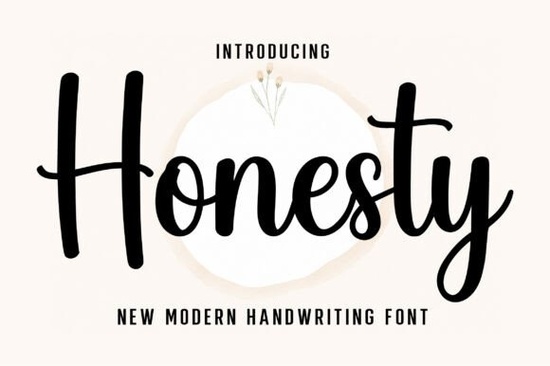
If you are looking for a handwritten font that feels natural without being too messy, Honesty Font is worth a closer look. This script font combines smooth curves with a clean, flowing style that works for both digital and print projects. Whether you are designing a logo, a wedding invitation, or a social media graphic, the font’s warm and personal touch can help your message stand out.
What makes Honesty Font different from other handwritten fonts?
Many handwritten fonts try to look perfectly imperfect, but sometimes they end up looking forced. Honesty Font strikes a nice balance. Its strokes are smooth and natural, not jagged or overly stylised. The letter connections feel organic, which makes long texts or single words look like they were written by hand with a steady pen. The font includes uppercase and lowercase letters, numbers, punctuation, and multilingual support, so you can use it for projects in different languages without missing characters.
How can you use Honesty Font in branding and logos?
For small businesses and print-on-demand sellers, a font that conveys a personal yet professional feel is gold. Honesty Font works well for:
- Brand names – The clean script adds a human touch without sacrificing readability.
- Taglines – Pair it with a simple sans-serif font for contrast.
- Watermarks – Use it on product photos or social media posts to build brand recognition.
Because the font is smooth and not too ornate, it remains legible even at smaller sizes. That makes it a practical choice for logos that will appear on packaging, business cards, or website headers.
Is Honesty Font suitable for Cricut and craft projects?
Absolutely. If you work with Cricut, Silhouette, or other cutting machines, you need fonts with clear paths and consistent stroke widths. Honesty Font’s handwritten style is designed to be cut easily. You can use it for:
- Vinyl signs and decals
- Greeting cards and gift tags
- Stickers and labels
- Iron-on transfers for T-shirts or tote bags
The font also works well for quotes and posters because the letters flow together naturally, so you won’t see awkward gaps or weird kerning after you cut them.
What about wedding invitations and greeting cards?
Handwritten fonts are a staple for wedding stationery, and Honesty Font is elegant enough for that purpose. Its smooth curves give a romantic feel without being overly decorative. You can use it for the main text of an invitation or for names and dates on save-the-dates. For greeting cards, the font’s warm look makes it suitable for both formal and casual occasions.
Because the character set includes numbers and punctuation, you can also typeset addresses or dates without switching fonts. Multilingual support is another plus if your audience speaks languages with accented characters.
How does Honesty Font compare to other script fonts?
Can you use Honesty Font for social media graphics?
Yes, and that is one of its strongest use cases. Social media posts often rely on typography to grab attention. Honesty Font’s clear, flowing script works well for:
- Instagram quotes and stories
- Pinterest pins
- Facebook cover text
- YouTube thumbnail titles
Because the font is not overly thick, it pairs nicely with photos or background images. You can also layer it with outlines or shadows without losing legibility.
What should you keep in mind when using this font?
Here is a quick checklist to help you get the best results with Honesty Font:
- Test readability at different sizes – Especially for small text like addresses or footnotes.
- Pair it with a simple font – Use a clean sans-serif like Helvetica or Montserrat for body text.
- Adjust letter spacing occasionally – Some script fonts need a tiny bit of tracking for perfect results.
- Use it on light backgrounds – The thin strokes can get lost on busy or dark images.
If you are designing for print-on-demand products like mugs, T-shirts, or phone cases, run a test print first to see how the font looks on your material.
Honesty Font is a practical choice when you need a handwritten look that is both stylish and easy to read. It saves you the trouble of drawing letters by hand and gives your projects a consistent, polished feel.